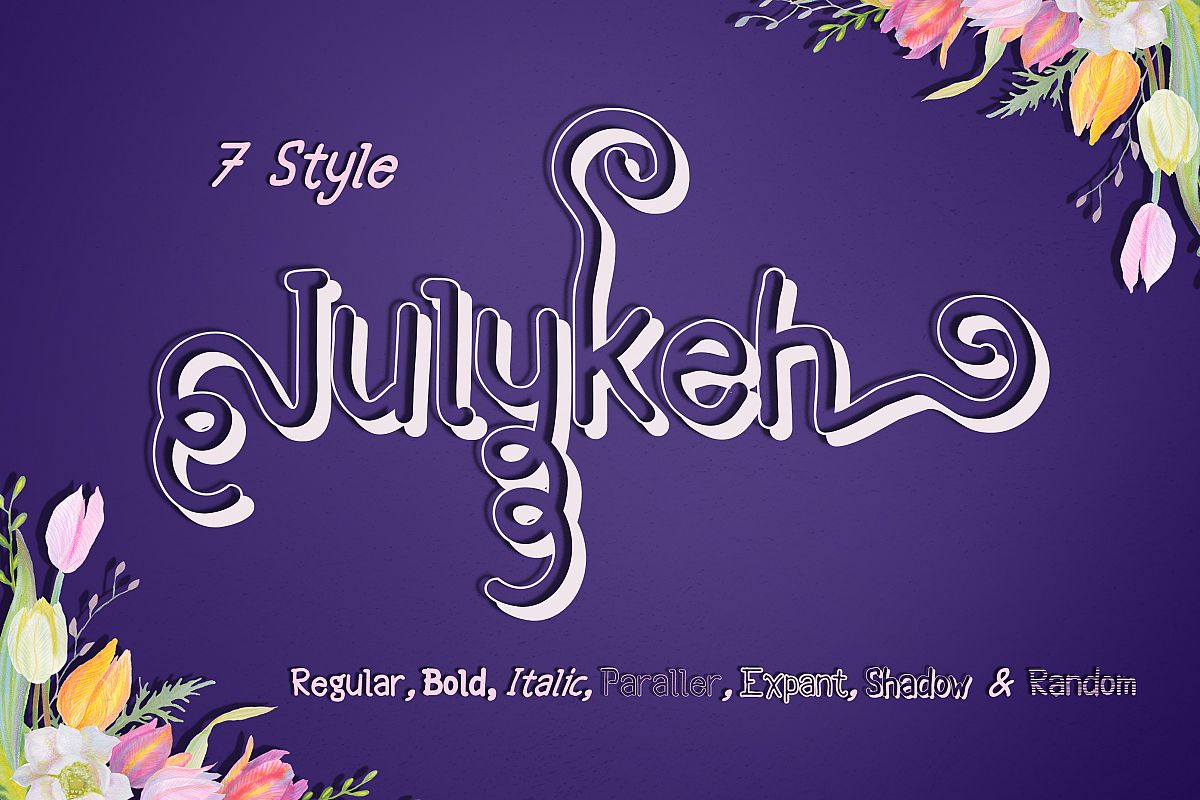
Julykeh handmade 7 Style Font
Introducing the brand new Julykeh handmade 7 Style Font A casual, arty and inky, newly brush-lettered font
Perfect for : using in ink or watercolour based designs or on its own
as bold hand-brushed lettering :) Use it for Branding, Logos, Greeting
Cards, Stationery Design, Invitations, T-shirts, Apparel, Packaging
designs, Poster, Typographic Design, and so much more!